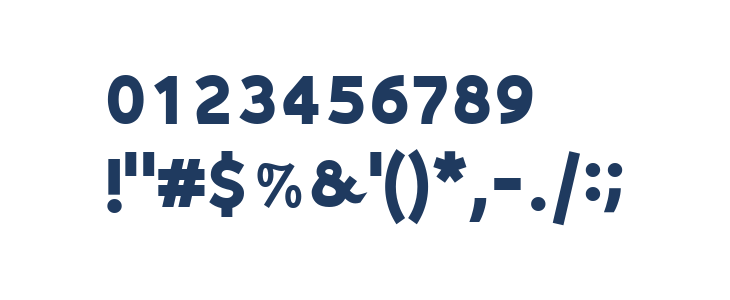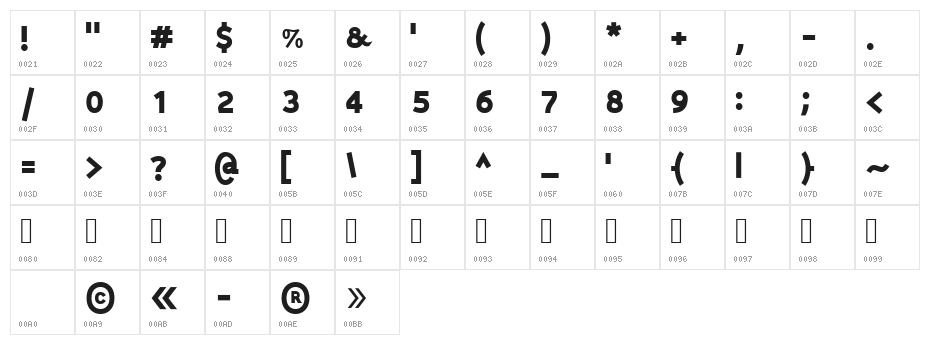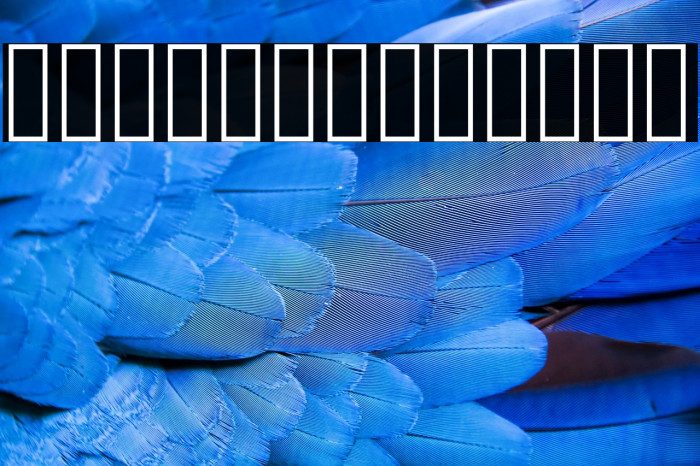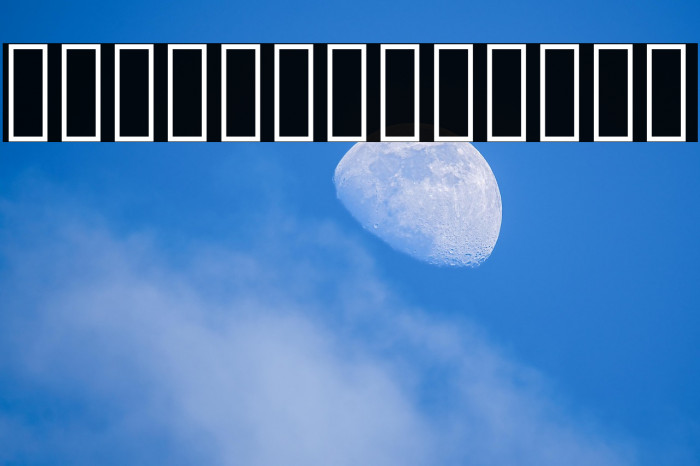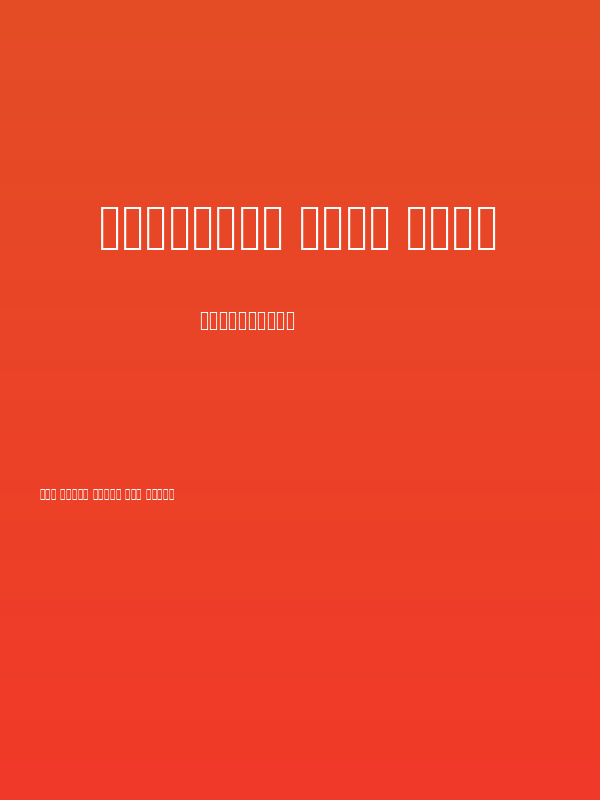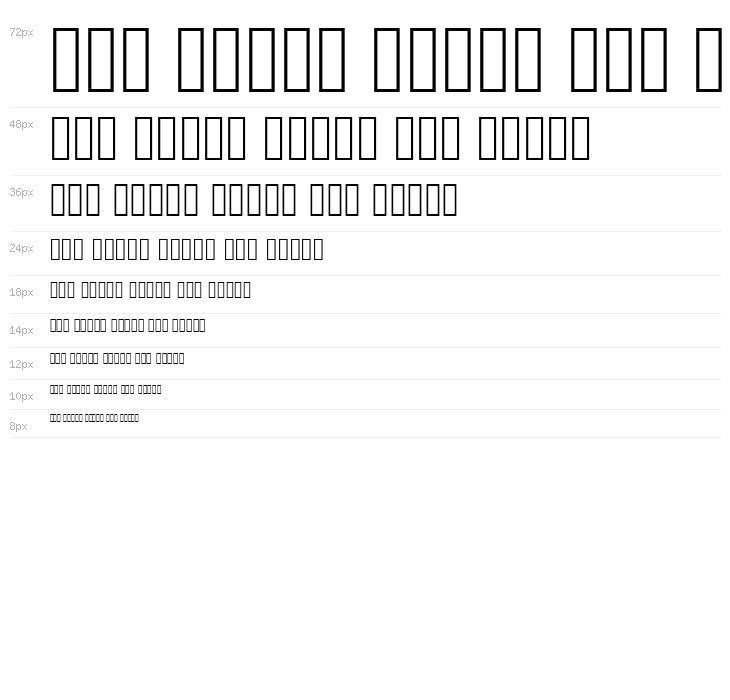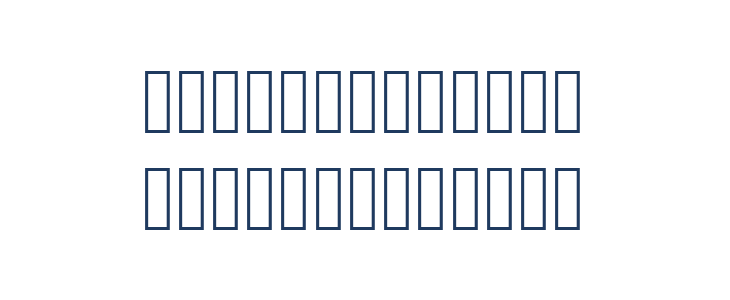
Carmelit Bold Bold Font
Carmelit Bold Bold Description
This font exhibits a bold and robust design, characterized by thick strokes and a strong presence. The characters are well-defined with a modern sans-serif style, making them highly legible and impactful. The uppercase letters maintain a consistent height, while the lowercase letters are slightly shorter, providing a balanced appearance. The numerals are clear and bold, ensuring readability in various contexts. Special characters are designed with the same boldness, ensuring uniformity across all glyphs.